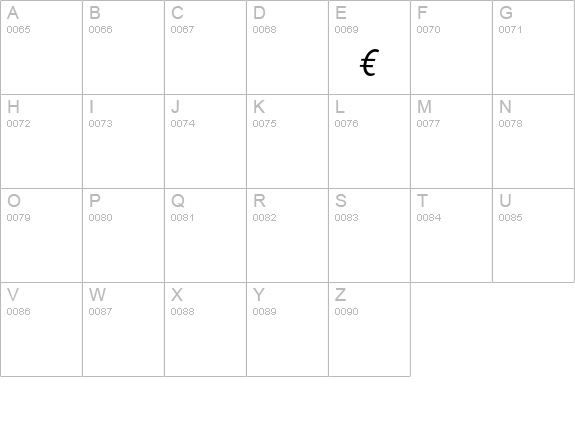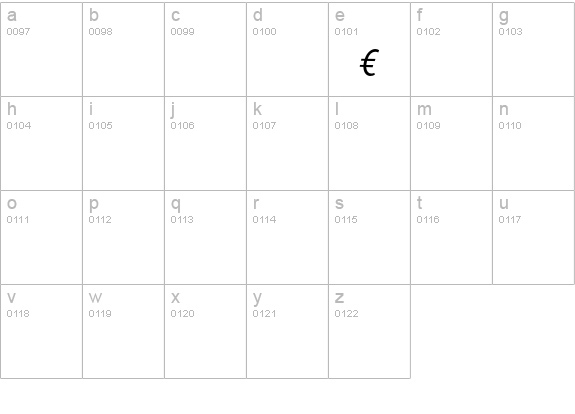
PedestriaMVB-Euro-Italic is a distinctive, italic variant in the PedestriaMVB typeface family \xE2\x80\x94 well suited to design and typography projects.
Introducing PedestriaMVB-Euro-Italic, a stunning font that effortlessly combines elegance and functionality. Its sleek and slanted italic design adds a touch of sophistication to any project, making it perfect for both professional and creative endeavors. With its clean and modern letterforms, PedestriaMVB-Euro-Italic brings a sense of fluidity and grace to your typography. Each character is meticulously crafted, ensuring legibility and visual appeal. Whether used for headings, body text, or even logos, this font is guaranteed to make a lasting impression. What sets PedestriaMVB-Euro-Italic apart is not only its exceptional design, but also its availability. This font is freely available to download at FontsMarket.com, allowing designers and creatives to access its beauty without any barriers. The freedom to experiment, create, and explore with PedestriaMVB-Euro-Italic is invaluable, empowering individuals to express their unique visions effortlessly. Compatible with a wide range of design software, PedestriaMVB-Euro-Italic seamlessly integrates into your workflow. Its versatility shines through in various applications, from web design to print materials, ensuring that your projects are consistently polished and professional. Experience the elegance and versatility of PedestriaMVB-Euro-Italic for yourself. Download it today, free of charge, at FontsMarket.com. Let this font become your go-to tool for adding a touch of sophistication and style to your designs, and unlock your creativity with the freedom it offers.